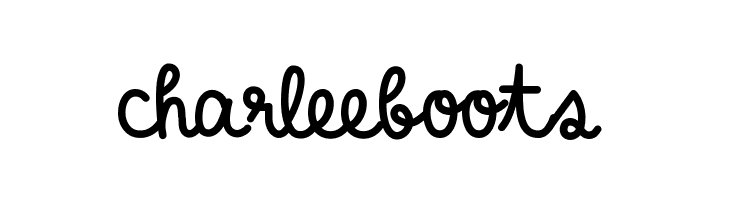
An elegant script font with flowing, cursive letterforms and delicate swashes.
A playful and casual handwritten font with fluid, dynamic strokes.
A bold, italicized font with a playful and dynamic style.
A bold, playful font with rounded edges and a hand-drawn feel.
A bold, italicized font with rounded, dynamic strokes and a playful style.
A playful, bold font with rounded edges and a hand-drawn feel.
A playful, handwritten font with smooth, flowing curves and a casual style.
A graceful and elegant script font with flowing, cursive letters.
An elegant script font with flowing lines and a classic, sophisticated style.
A flowing, cursive script font with elegant, connected strokes.